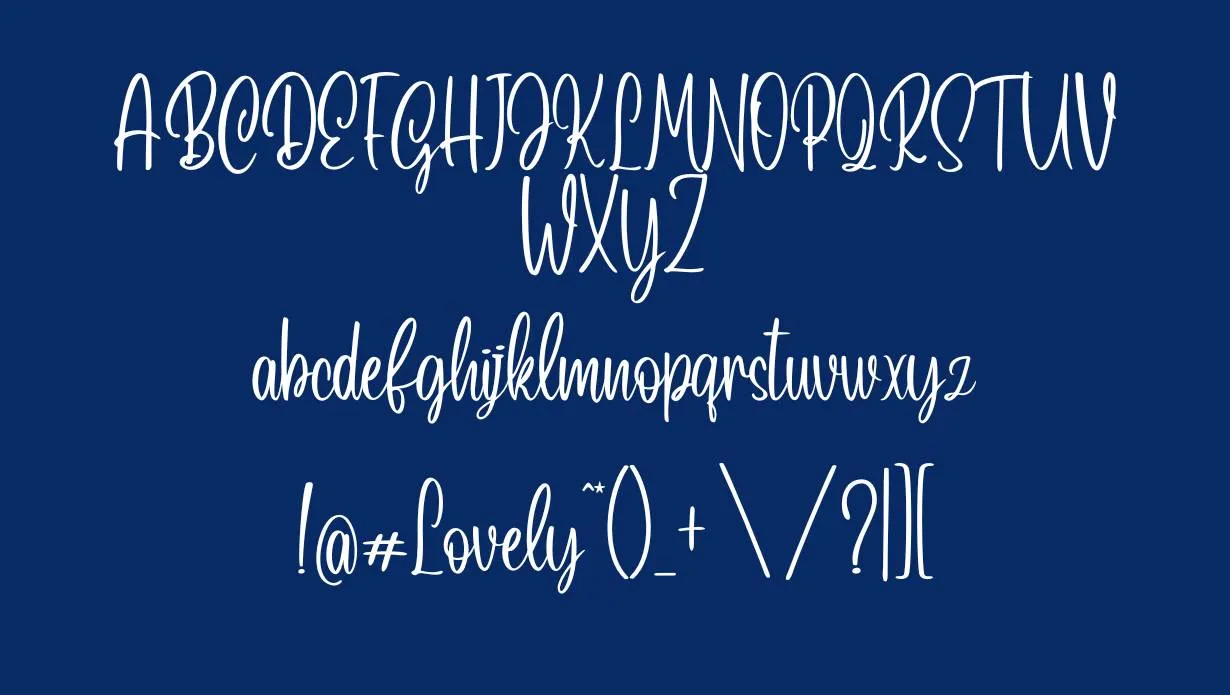
The Lovely Font is a breath of sweetness in typography form, adding a charming and delightful touch to your designs. Ideal for projects that aim to capture the essence of love or warmth, its characters radiate a lovely vibe.
| Name | Lovely Font |
| Designer | Donis Miftahudin |